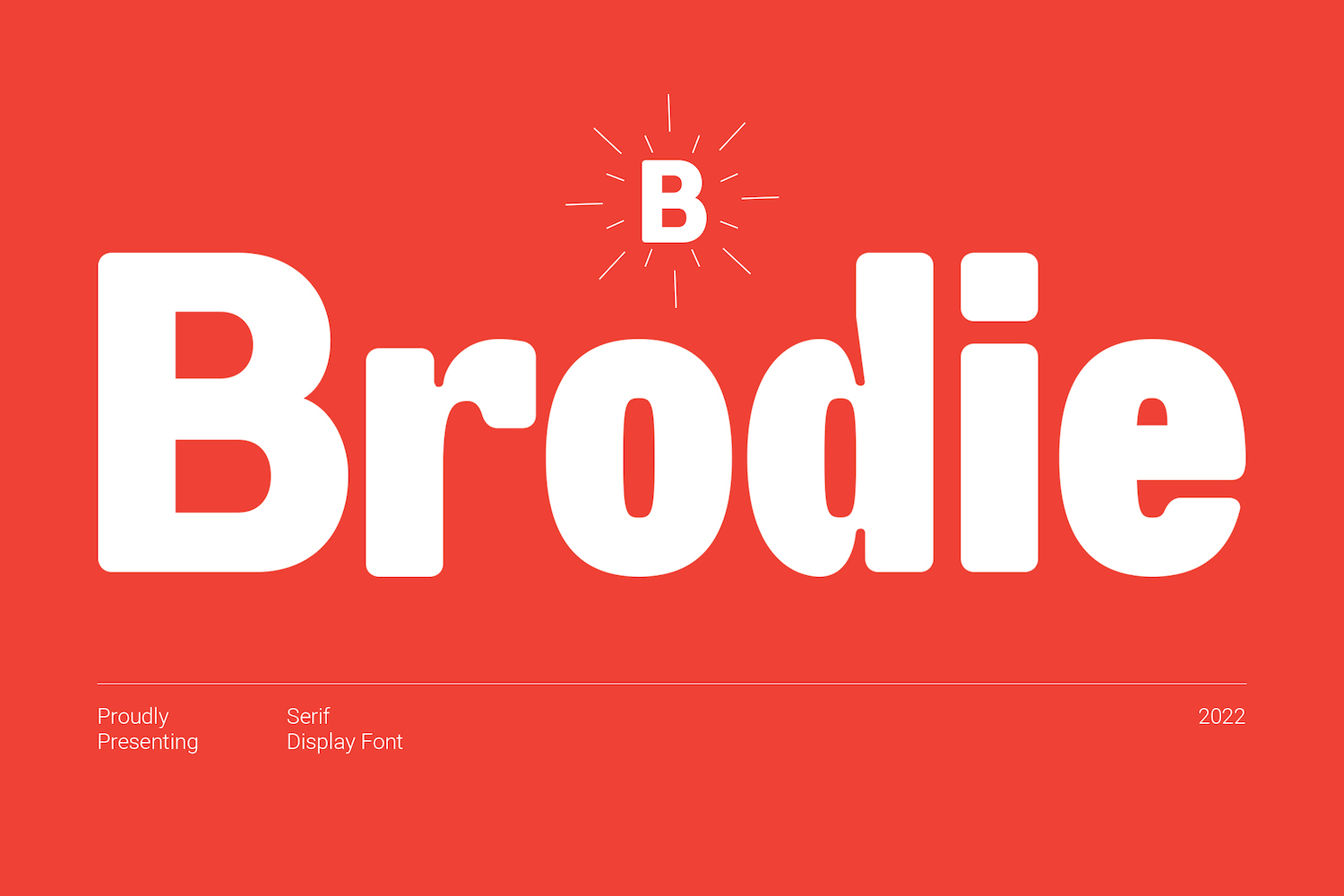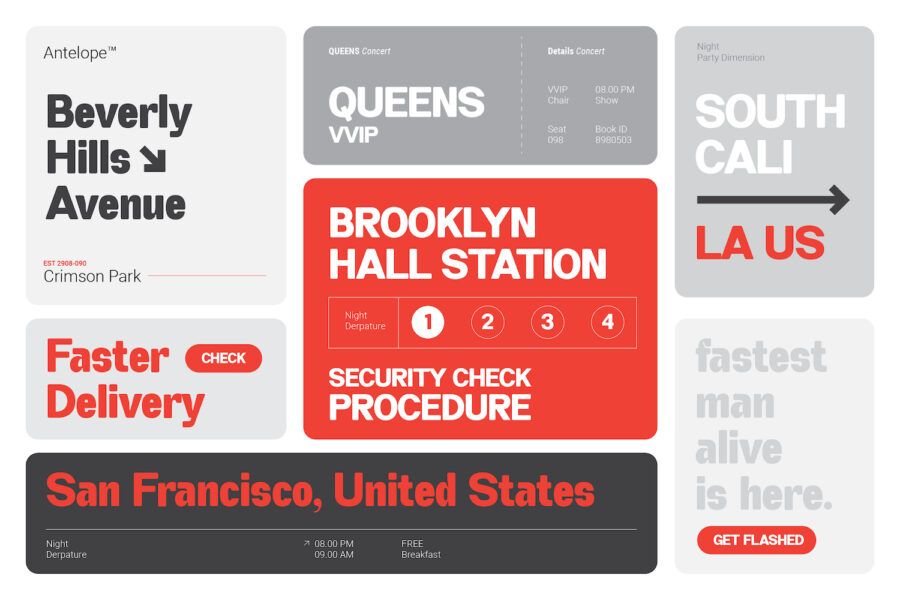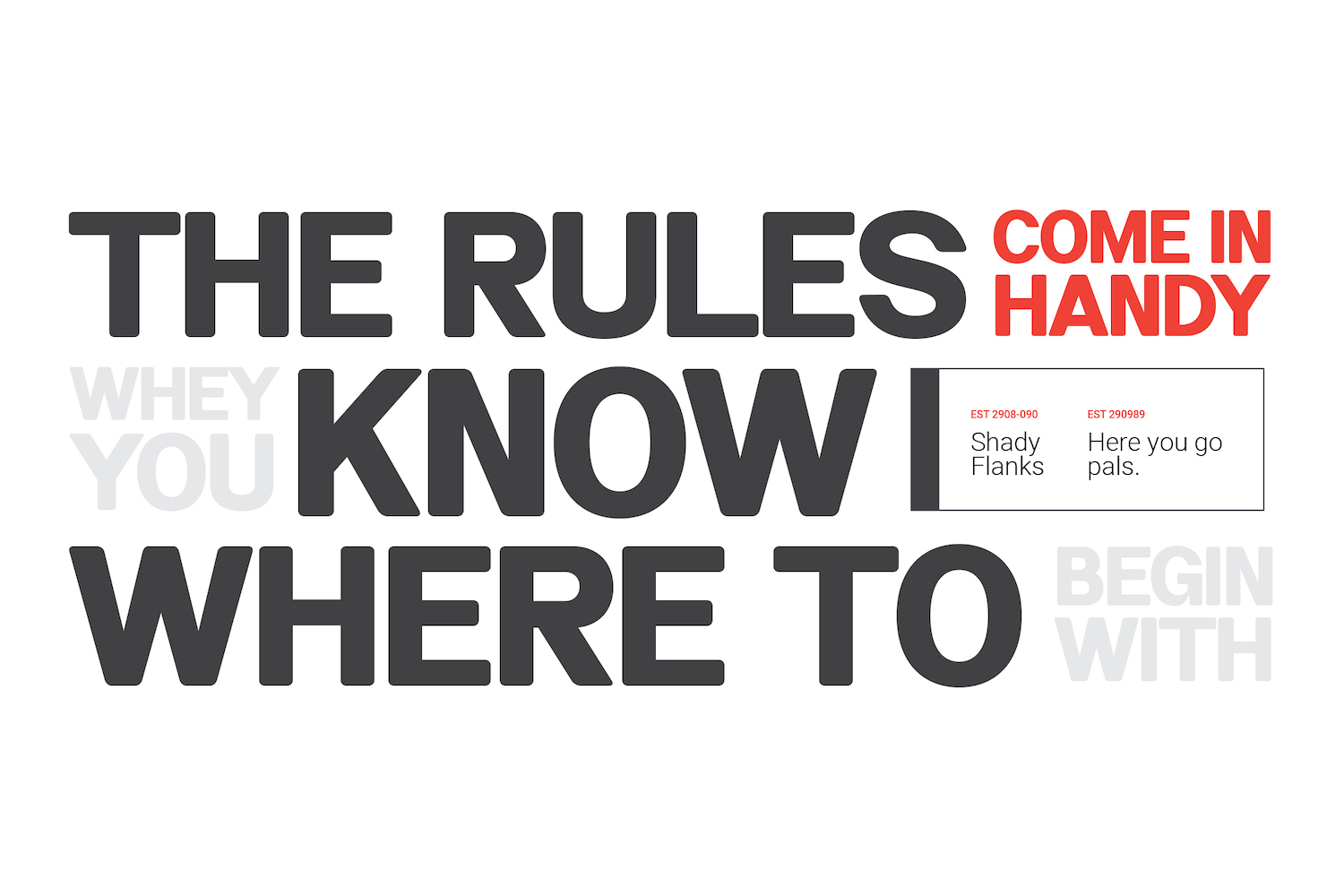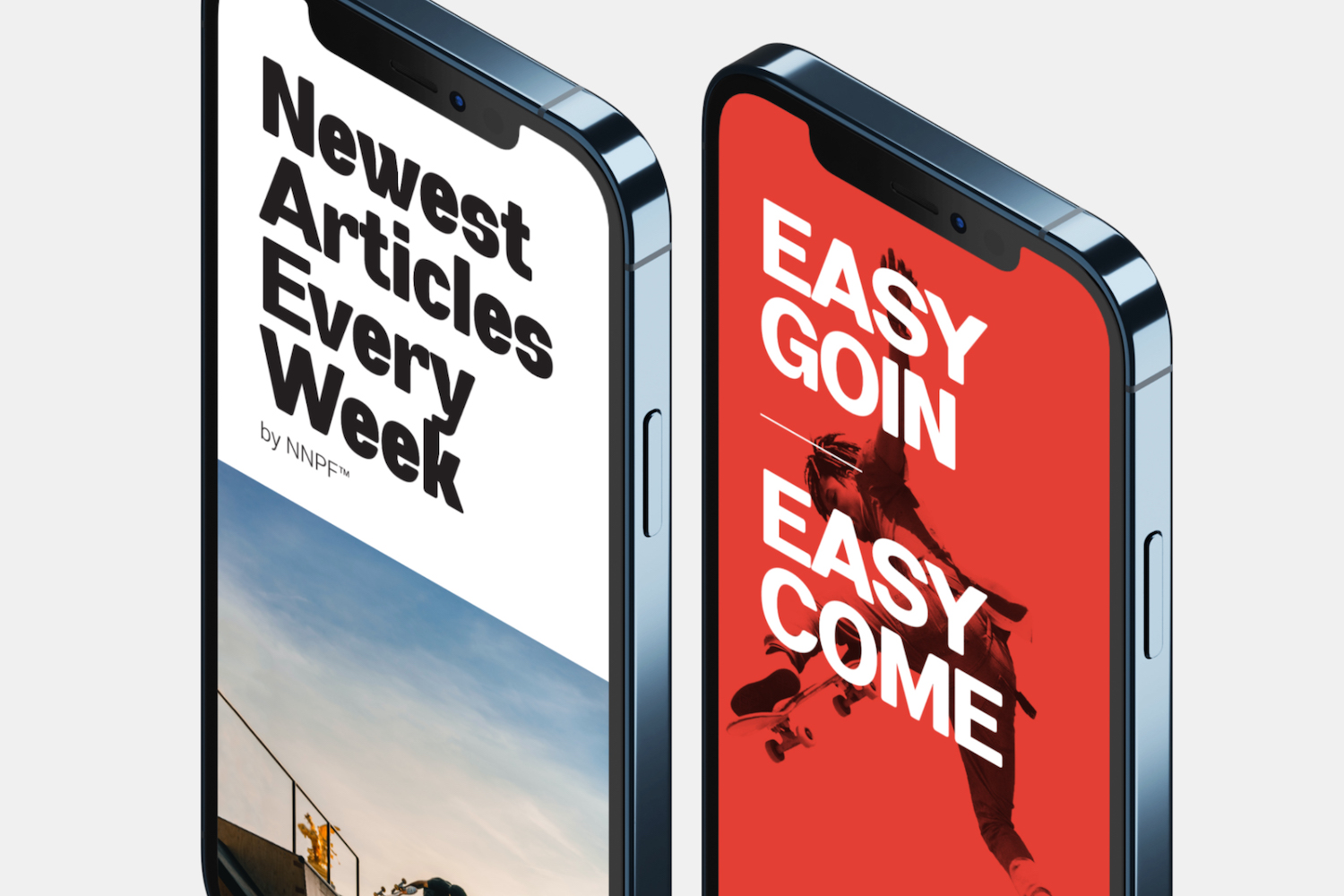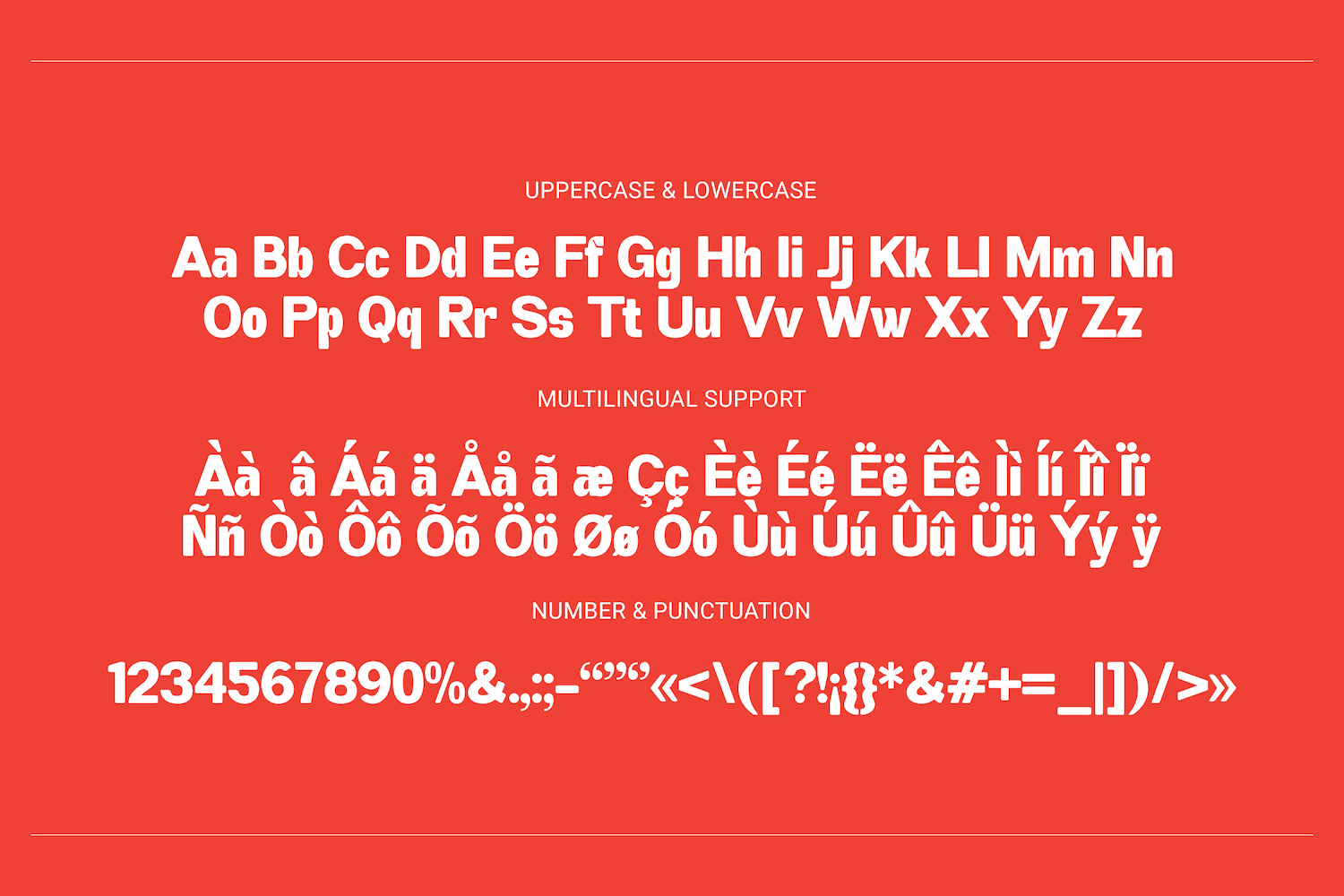
Brodie is a bold and friendly sans serif display font designed to capture attention in both digital and print media. Despite being labeled as a serif, Brodie clearly features smooth, rounded edges and a clean structure without any decorative strokes—making it unmistakably sans serif. Its soft curves and generous spacing make it a great fit for impactful headlines, branding, advertising, or modern signage design.
This font comes with full uppercase and lowercase characters, multilingual support, and a variety of punctuation marks. Brodie’s confident, contemporary look brings personality to urban layouts, tech-forward designs, and editorial uses. Whether on mobile interfaces or billboard posters, Brodie delivers clarity with a touch of charm.
Brodie